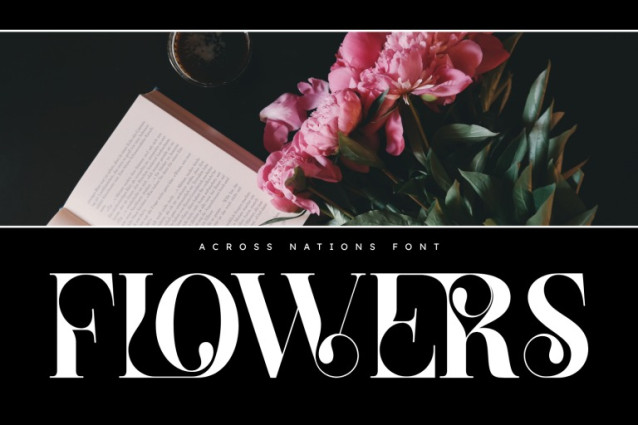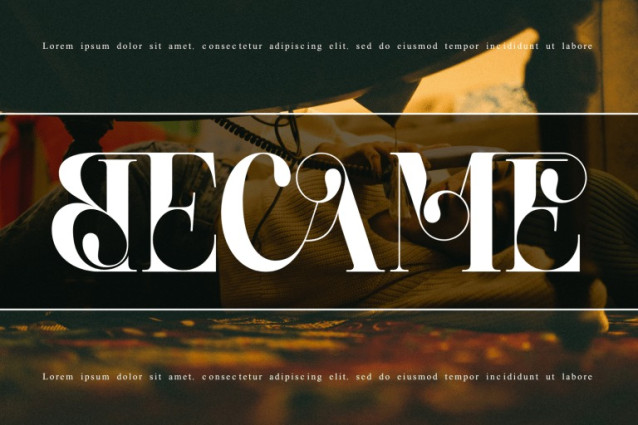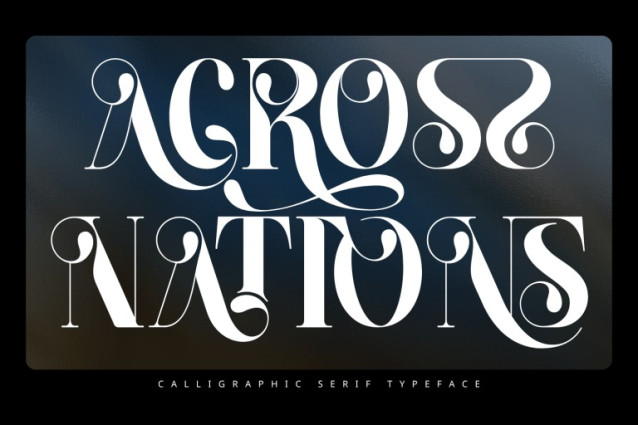
ACROSS NATIONS Font
ACROSS NATIONS – MODERN SERIF FONT is an elegant modern serif display font that beautifully combines timeless sophistication with luxurious decorative details. Inspired by classic Didone typography, this typeface features dramatic high-contrast strokes, graceful curves, and exquisite swashes that bring refinement and charm to every letter. Designed with ornate terminals and flowing flourishes, ACROSS NATIONS creates a captivating visual rhythm that feels both romantic and fashion-forward. Its stylish letterforms effortlessly evoke a sense of luxury, making it ideal for premium branding and editorial design.